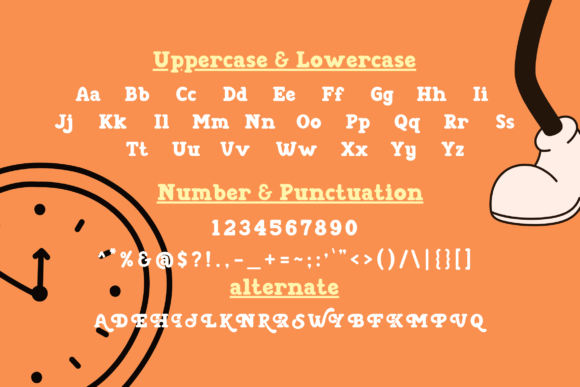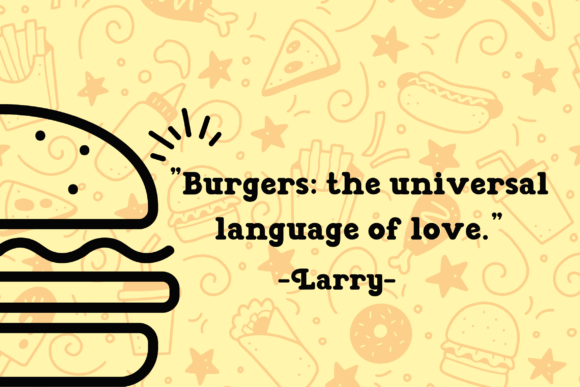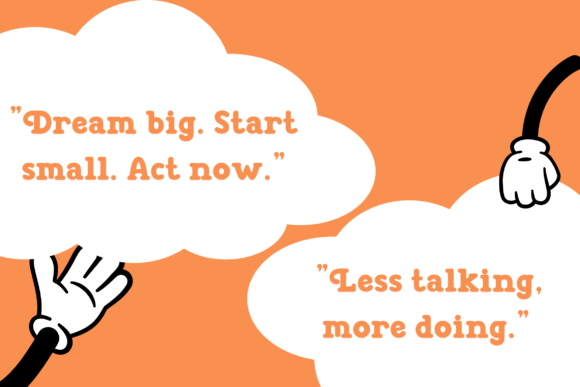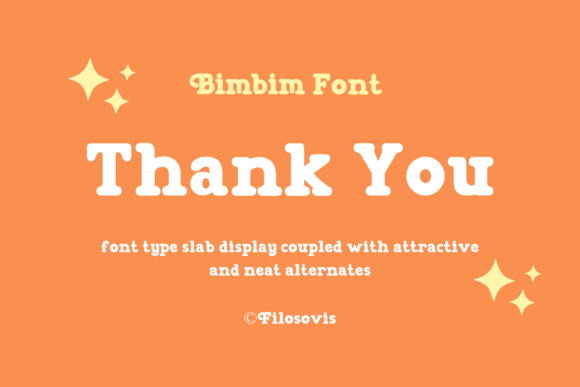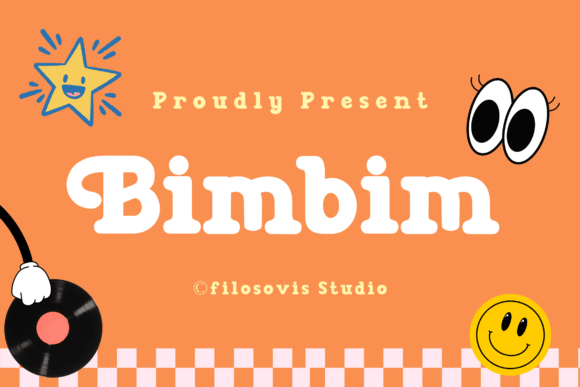
Bimbim Font: Adding a Playful Twist to Your Designs
In the world of typography, fonts play a crucial role in conveying the tone and personality of a design. Whether you’re a graphic designer, a crafty DIY enthusiast, or a branding expert, finding the right font can make all the difference. If you’re looking for a font that adds a playful twist to your designs, look no further than Bimbim Font. In this article, we’ll explore the unique features of Bimbim, its uses, and why it’s perfect for designers and crafters alike.
What is Bimbim Font?
Bimbim is a display font that boasts a whimsical and playful charm. Its unique letterforms are designed to add a touch of fun and personality to any design. With its bold and eye-catching appearance, Bimbim is perfect for headlines, posters, branding projects, and any other design that requires a dash of whimsy.
Key Features of Bimbim Font
• Whimsical letterforms: Bimbim’s letterforms are designed to be playful and fun, making it perfect for designs that require a lighthearted touch.
• Unique charm: Bimbim has a distinctive charm that sets it apart from other fonts, making it ideal for designers who want to add a personal touch to their work.
• Display font: Bimbim is a display font, making it perfect for headlines, titles, and other large-format designs.
• Easy to read: Despite its playful nature, Bimbim is easy to read, making it suitable for a wide range of design applications.
Uses of Bimbim Font
Bimbim Font is versatile and can be used in a variety of design projects, including:
• Headlines and titles: Bimbim’s bold and playful appearance makes it perfect for headlines and titles that need to grab attention.
• Posters and flyers: Bimbim’s whimsical nature makes it ideal for posters and flyers that require a playful touch.
• Branding projects: Bimbim can add a personal touch to branding projects, making them more relatable and engaging.
• Social media graphics: Bimbim’s playful charm makes it perfect for social media graphics that need to stand out.
Why Choose Bimbim Font?
With so many fonts available, why choose Bimbim? Here are a few reasons why Bimbim stands out:
• Unique and playful: Bimbim’s whimsical nature makes it a standout font that’s sure to grab attention.
• Versatile: Bimbim can be used in a wide range of design projects, from headlines to branding projects.
• High-quality: Bimbim is a high-quality font that’s designed to deliver exceptional results.
Tips for Using Bimbim Font
Here are a few tips for using Bimbim Font effectively:
• Use it sparingly: Bimbim is a bold font, so use it sparingly to avoid overwhelming your design.
• Pair it with other fonts: Bimbim pairs well with other fonts, so experiment with different combinations to find the perfect look.
• Experiment with colors: Bimbim looks great in a variety of colors, so don’t be afraid to experiment and find the perfect hue.
In conclusion, Bimbim Font is a unique and playful display font that’s perfect for designers and crafters who want to add a touch of whimsy to their designs. With its bold and eye-catching appearance, Bimbim is ideal for headlines, posters, branding projects, and any other design that requires a dash of personality. Whether you’re a seasoned designer or just starting out, Bimbim is a great addition to your font library.